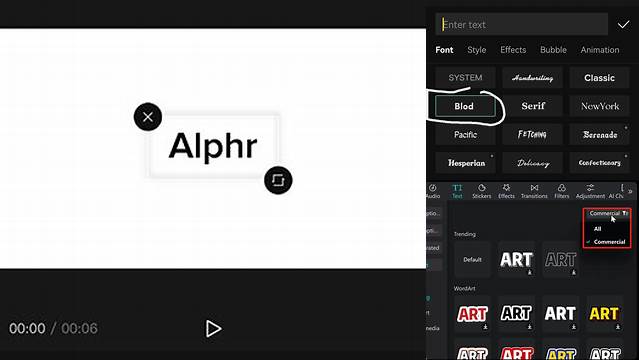
Are you looking to elevate your video editing game with CapCut? One of the easiest and most effective ways to do this is by using the right fonts. Choosing the right font can dramatically impact the message you're trying to convey and the overall aesthetic of your video. CapCut offers a wide variety of fonts, but knowing which ones to use and how to use them can make all the difference. Let's dive into the world of CapCut fonts and explore how you can use them to make your videos stand out.
Fonts are more than just letters; they are a visual representation of your message. The fonts you choose set the tone and mood of your video, influencing how your audience perceives your content. A playful font might be perfect for a lighthearted vlog, while a sleek, modern font could be ideal for a professional business presentation. Think about it: have you ever seen a serious documentary use Comic Sans? Probably not! The font would clash with the tone and undermine the credibility of the video.
Moreover, readability is crucial. If your audience can't easily read the text in your video, they're likely to tune out. Choosing clear, legible fonts and ensuring they contrast well with the background are essential for keeping viewers engaged. Experiment with different font sizes, colors, and styles to find what works best for your project. Consider adding shadows or outlines to your text to make it pop against busy backgrounds. Ultimately, the right font enhances your message, makes your video more visually appealing, and keeps your audience hooked.
CapCut comes with a diverse built-in font library, catering to various styles and needs. Navigating this library is straightforward, allowing you to quickly find the perfect font for your project. The app categorizes fonts into different styles, such as basic, handwriting, and display, making it easier to narrow down your choices. Spend some time browsing through the available options to get a feel for what CapCut offers. Don't be afraid to try out different fonts to see how they look with your video content.
One of the great things about CapCut's font library is that it's regularly updated with new additions. This means you'll always have fresh options to explore and keep your videos looking current. Plus, CapCut allows you to import your own custom fonts, giving you even more flexibility and creative control. Whether you're aiming for a classic, timeless look or something more trendy and experimental, CapCut's font library has got you covered. Just remember to use fonts that complement your video's theme and message to create a cohesive and impactful visual experience.
Adding fonts in CapCut is a breeze, and customizing them to fit your video's aesthetic is just as simple. First, open your project in CapCut and select the text layer you want to modify. Then, tap on the "Font" option in the editing toolbar. This will open up CapCut's font library, where you can browse through the available fonts and select the one you like. Once you've chosen a font, you can adjust its size, color, and opacity to fine-tune its appearance.
But the customization doesn't stop there! CapCut also offers a range of advanced text editing options, such as adding shadows, outlines, and background colors. These features can help your text stand out and improve readability, especially on busy or colorful backgrounds. Experiment with different combinations of these effects to achieve the perfect look. You can also animate your text to make it more dynamic and engaging. CapCut provides various animation presets, from simple fades to more complex kinetic typography effects. By mastering these techniques, you can create visually stunning text that enhances your video and captures your audience's attention.
Popular Font Choices for Different Video Styles
Choosing the right font largely depends on the style and purpose of your video. For vlogs and casual content, playful and approachable fonts like Poppins, Montserrat, or Lato can work well. These fonts are clean, modern, and easy to read, making them ideal for on-screen text and captions. If you're creating a more professional video, such as a business presentation or tutorial, opt for more formal and sophisticated fonts like Roboto, Open Sans, or Helvetica. These fonts convey a sense of authority and credibility, making them suitable for conveying important information.
For creative projects like short films or music videos, you can experiment with more stylized and unique fonts. Bebas Neue is a popular choice for its bold and attention-grabbing appearance, while Oswald offers a more condensed and modern look. If you want to add a personal touch to your video, consider using a handwriting font like Pacifico or Lobster. However, be careful not to overuse these fonts, as they can be harder to read in large blocks of text. Ultimately, the best font choice is one that complements your video's overall aesthetic and enhances its message. Don't be afraid to try out different fonts and see what works best for your project.
Importing Custom Fonts into CapCut
Want to take your CapCut edits to the next level? Importing custom fonts can give your videos a unique and personalized touch. CapCut makes this process simple and straightforward. First, you'll need to find and download the font file you want to use. Make sure the font is compatible with CapCut and that you have the necessary permissions to use it.
Level Up Your Edits with CapCut Fonts
In conclusion, mastering the use of CapCut fonts is essential for creating visually appealing and engaging videos. By understanding the importance of fonts, exploring CapCut's font library, and learning how to add and customize fonts, you can elevate your video editing game and create content that stands out from the crowd. So, go ahead and experiment with different fonts, styles, and techniques to find what works best for you. With a little practice and creativity, you'll be amazed at the difference the right font can make in your CapCut edits.